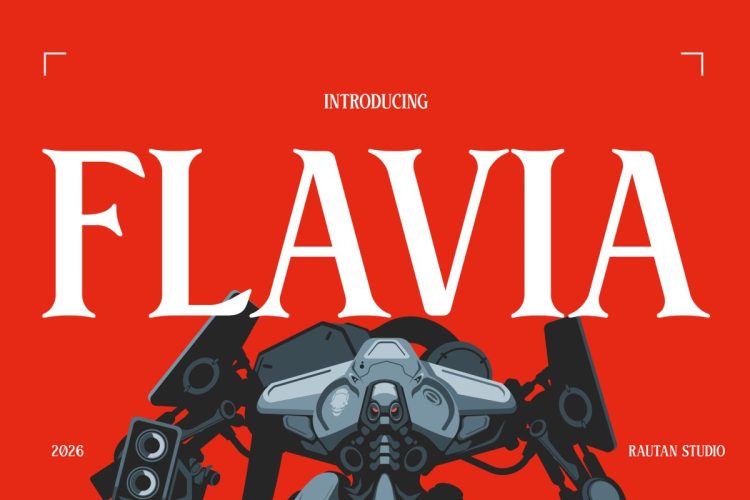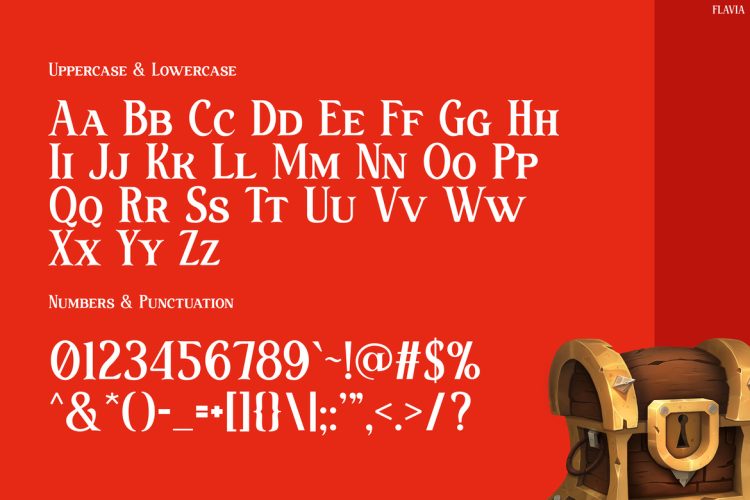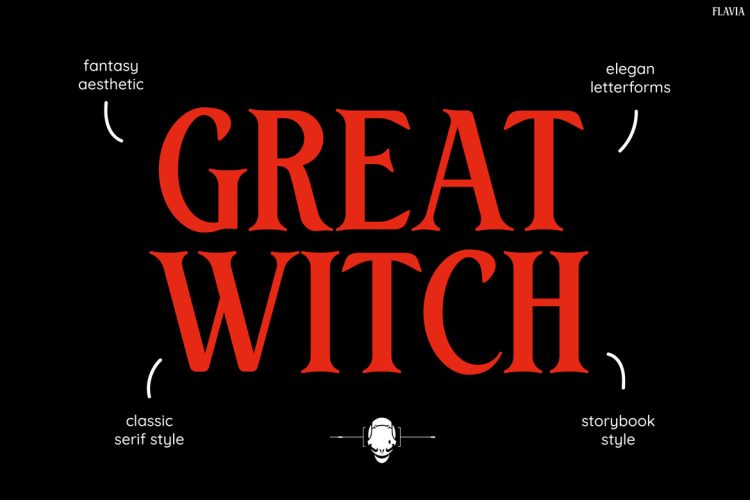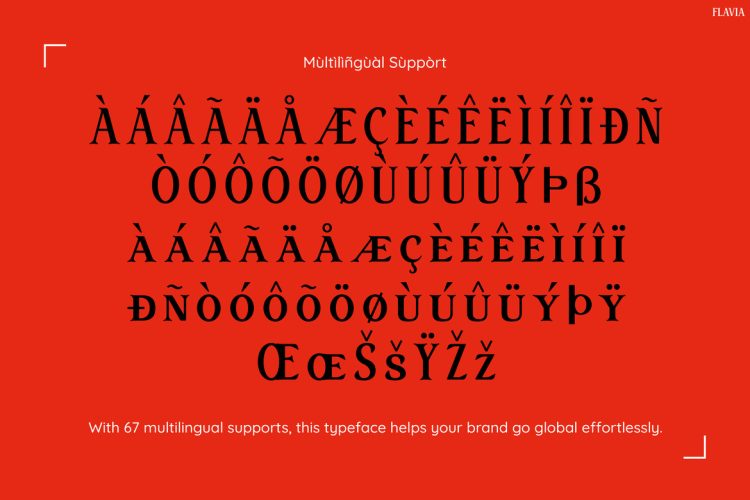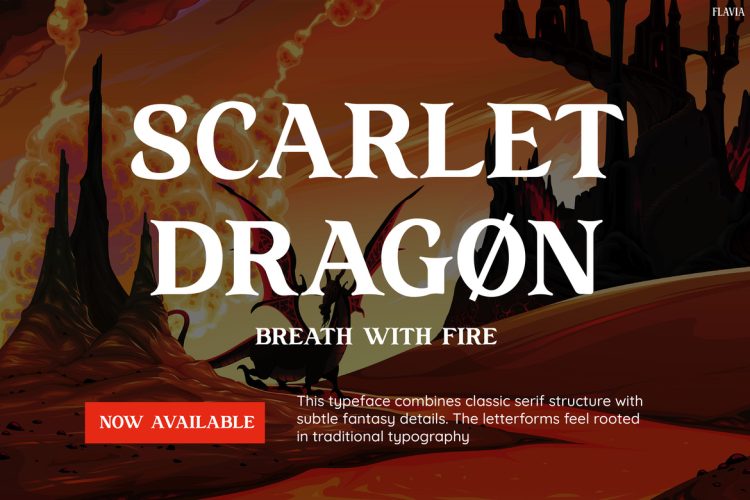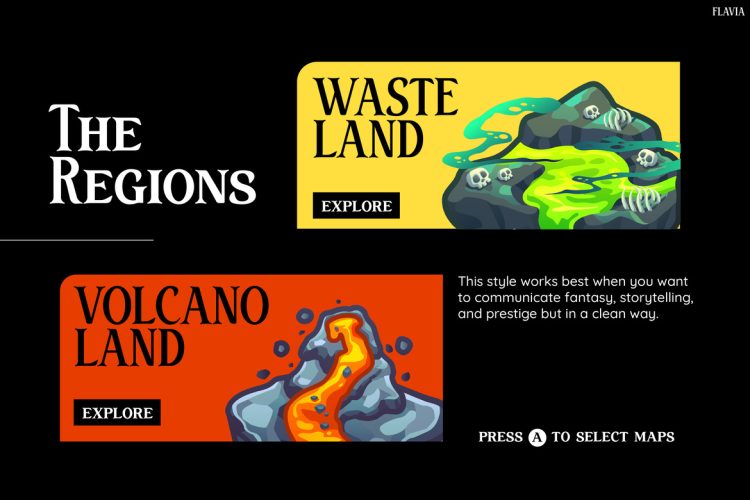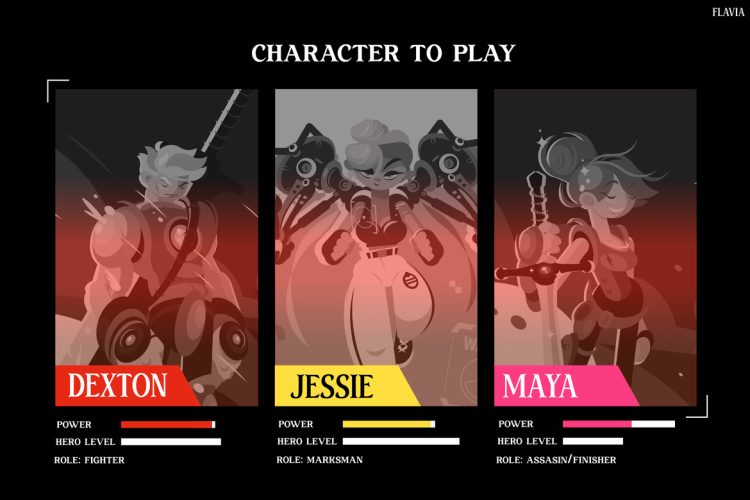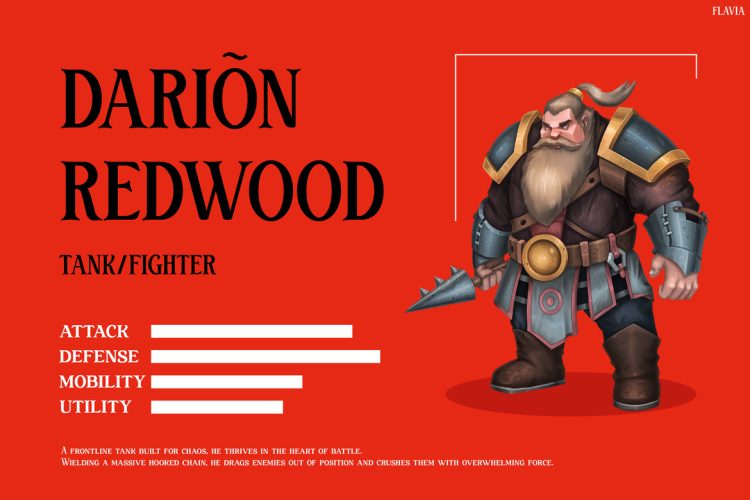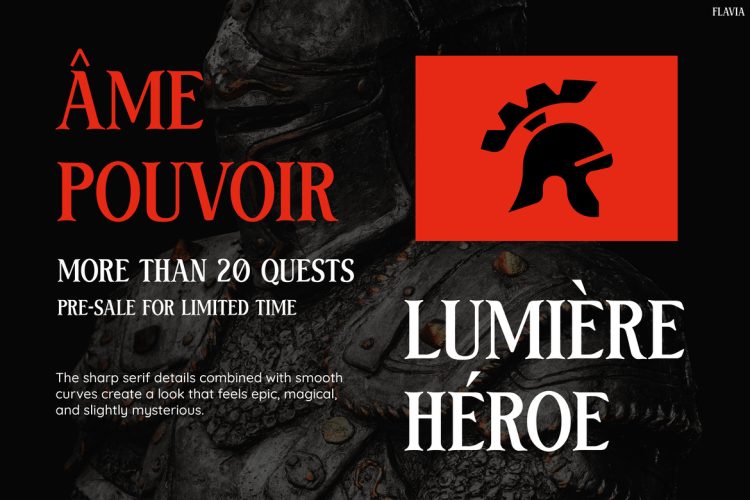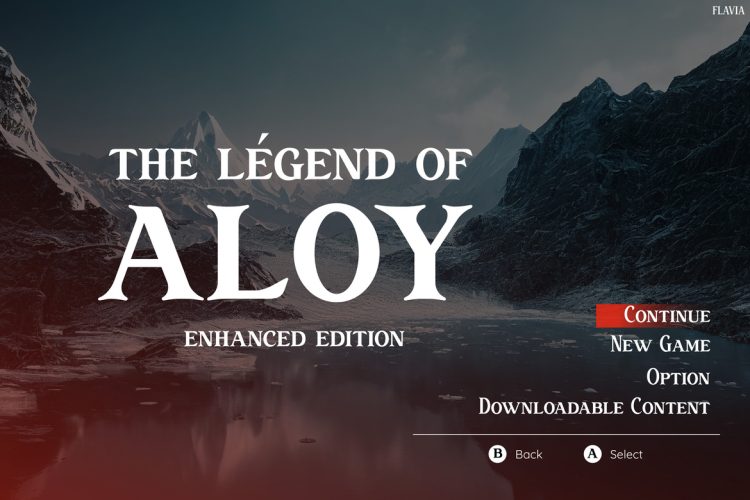
Flavia โ Epic Cinematic Gaming Serif
Gaming Font Flavia is a powerful display serif designed to bring cinematic impact and dramatic elegance to your visuals. At first glance, it feels bold, sharp, and authoritative. Moreover, its high-contrast strokes and refined serif details create a heroic and immersive atmosphere. Each letter is crafted with precision, so it delivers a strong visual presence in every composition. In addition, the font captures the essence of fantasy worlds, action games, and epic storytelling. Because of its striking style, Flavia instantly elevates titles, menus, and branding into something unforgettable. With support for 67 languages, it also ensures your designs can reach a global audience seamlessly.
Gaming Font Flavia blends classic serif elegance with a modern cinematic edge. As a result, it works perfectly for game titles, UI screens, and promotional visuals. Furthermore, the font features sharp terminals and bold contrasts, which enhance readability while maintaining a dramatic tone. In addition, its versatility allows it to shine in both dark-themed and vibrant layouts. Whether used for character screens, world maps, or title intros, it consistently delivers a premium look. Therefore, designers can create immersive experiences that feel polished and professional. Not only that, but Flavia also adapts well to posters, trailers, and branding assets.
This font is ideal for game developers, UI/UX designers, and creative studios. Specifically, it suits fantasy games, RPGs, adventure titles, and cinematic projects. Moreover, it works great for movie posters, streaming thumbnails, and digital campaigns. In fact, it is perfect for anyone who wants to create bold, story-driven visuals. Because of its dramatic style, it connects strongly with audiences who love immersive worlds. So, if your project needs a powerful and cinematic touch, Flavia is the right choice.
So, level up your design with Gaming Font Flavia and create visuals that feel epic, bold, and truly unforgettable.